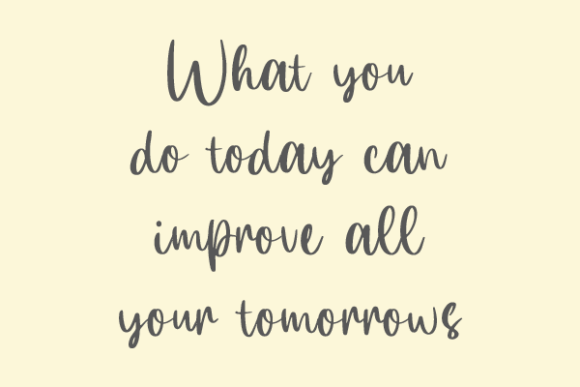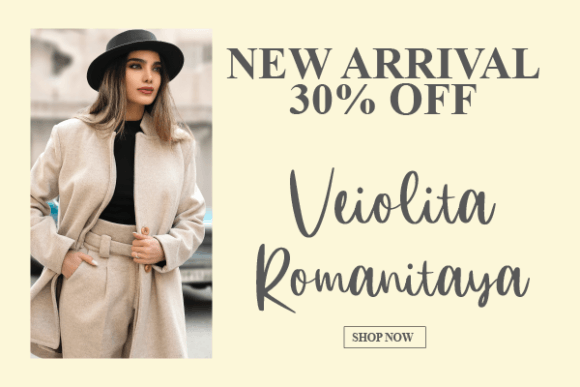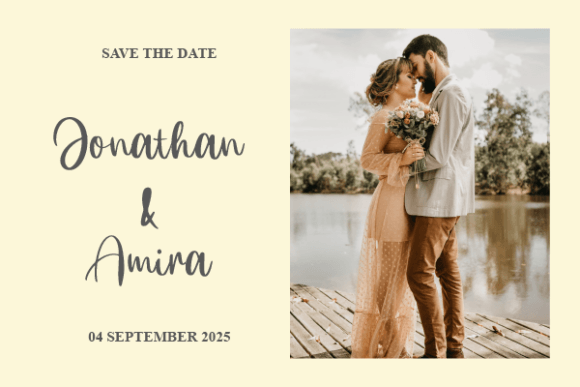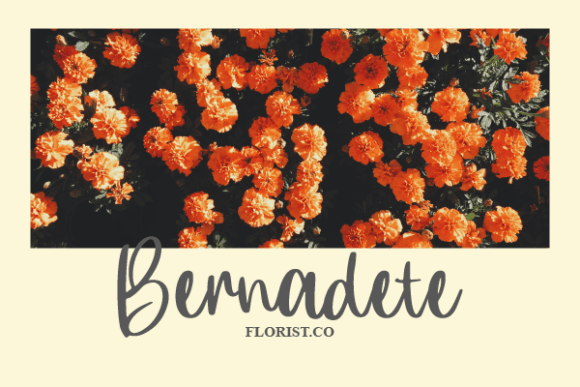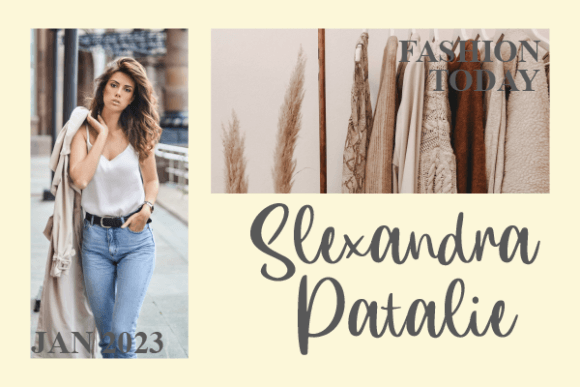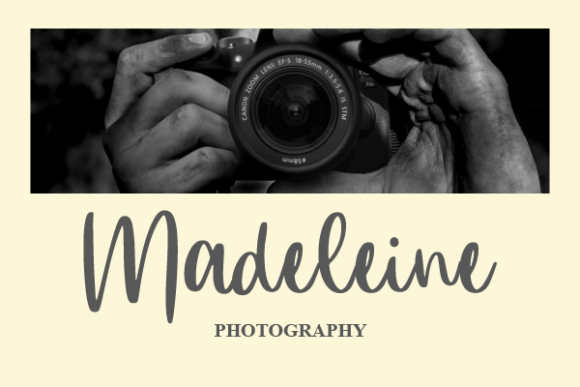
Davies Therese Font: Elevate Your Designs with Elegance and Sophistication
In the world of typography, a new modern script calligraphy typeface has emerged to capture the hearts of designers and crafters alike. Say hello to Davies Therese Font, a stunning addition to the realm of creative typography. This beautiful font boasts its own unique flow and elegant personality, making it the perfect choice for a wide range of design projects.
What is Davies Therese Font?
Davies Therese Font is a modern script calligraphy typeface that exudes elegance and sophistication. Its unique flow and personality make it an excellent choice for designers looking to add a touch of refinement to their projects. Whether you’re working on a logo design, branding, covers, posters, or any other creative endeavor, Davies Therese Font is sure to impress.
Key Features of Davies Therese Font
- Unique Flow: Davies Therese Font features a distinctive flow that sets it apart from other script fonts. Its elegant strokes and curves create a sense of movement and fluidity, making it perfect for designs that require a touch of dynamism.
- Elegant Personality: This font embodies elegance and sophistication, making it ideal for high-end designs, luxury brands, and creative projects that demand a level of refinement.
- Versatility: Davies Therese Font is suitable for a wide range of design projects, including logo design, branding, covers, posters, and more. Its versatility makes it an excellent addition to any designer’s toolkit.
- Modern Aesthetic: This font boasts a modern aesthetic that is sure to appeal to designers who appreciate clean lines, simplicity, and sophistication.
Use Cases for Davies Therese Font
Davies Therese Font is an incredibly versatile typeface that can be used in a variety of design projects. Here are some use cases to inspire your creativity:
- Logo Design: Create a lasting impression with a custom logo designed using Davies Therese Font. Its unique flow and elegant personality make it perfect for luxury brands, high-end services, and creative businesses.
- Branding: Establish a strong brand identity with Davies Therese Font. Use it for business cards, letterheads, and other marketing materials to convey a sense of sophistication and elegance.
- Covers and Posters: Add a touch of glamour to your book covers, movie posters, and event flyers with Davies Therese Font. Its modern aesthetic and elegant personality make it perfect for designs that require a level of sophistication.
- Packaging Design: Elevate your packaging design with Davies Therese Font. Use it for product labels, packaging materials, and other creative projects that require a touch of elegance.
Why Choose Davies Therese Font?
With so many fonts available, why choose Davies Therese Font? Here are a few compelling reasons:
- Unique Style: Davies Therese Font offers a unique style that sets it apart from other script fonts. Its elegant personality and modern aesthetic make it perfect for designers looking to create something truly special.
- Ease of Use: This font is incredibly easy to use, making it perfect for designers of all skill levels. Whether you’re a seasoned pro or just starting out, Davies Therese Font is easy to integrate into your design workflow.
- High-Quality Design: Davies Therese Font is designed with high-quality craftsmanship in mind. Its smooth strokes, elegant curves, and precise kerning make it perfect for designs that demand attention to detail.
In conclusion, Davies Therese Font is an exceptional modern script calligraphy typeface that offers elegance, sophistication, and versatility. Its unique flow and personality make it perfect for a wide range of design projects, from logo design and branding to covers, posters, and more. If you’re looking to elevate your designs and add a touch of refinement, Davies Therese Font is an excellent choice.